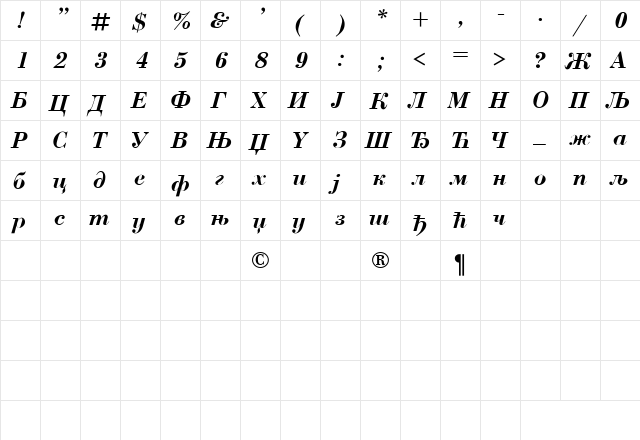
Bodoni Cirilica Bold Italic
Design Context for Bodoni Cirilica Typeface
Bodoni Cirilica is a composed and adaptable typeface that performs quietly and consistently across a wide range of design contexts. Its italic angle brings a sense of urgency and motion to the letterforms. The heavy weight commands attention and anchors typographic hierarchies.
Pro Tip: Use Bodoni Cirilica for emphasis, pull quotes, and subheadings where its slanted energy can add rhythm to the layout.